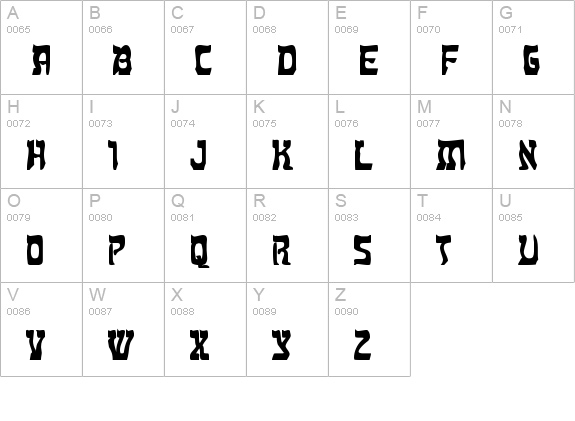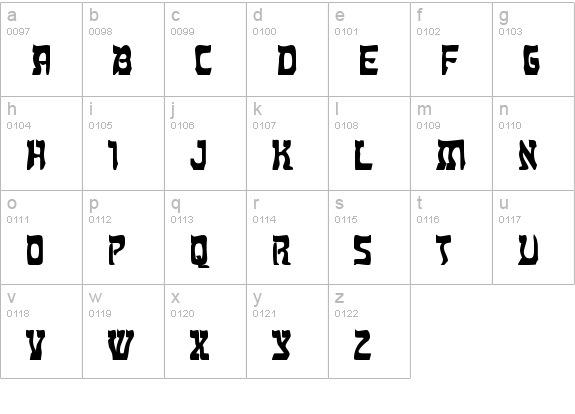
Kosher Wide Bold is a strong, high-contrast, extended-width variant in the Kosher typeface family \xE2\x80\x94 well suited to headlines, attention-grabbing titles, and strong calls-to-action.
Kosher Wide Bold font is a stunning and versatile typeface that exudes elegance and sophistication. With its bold and wide design, this font is perfect for grabbing attention and making a statement. Ideal for headlines, logos, posters, and more, Kosher Wide Bold adds a touch of modernity to any project. What sets Kosher Wide Bold apart is its unique blend of traditional and contemporary elements, making it a truly standout font choice. Its clean lines and sharp edges give it a sleek and polished look, while its bold weight commands the viewer's attention. Best of all, Kosher Wide Bold is free to download at FontsMarket.com, making it accessible to everyone in need of a high-quality font for their design projects. Whether you're a graphic designer, a marketer, or a business owner, Kosher Wide Bold is sure to elevate your work and leave a lasting impression. Download it today and see the difference it can make in your designs!